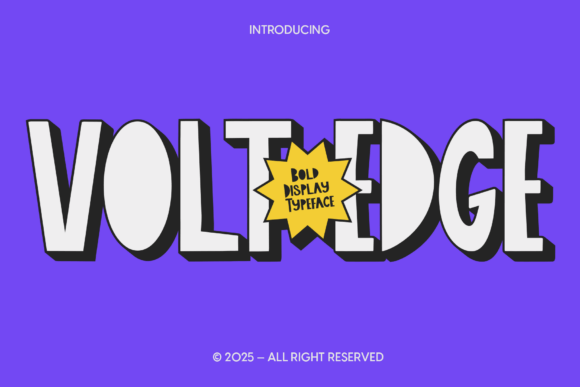
Cfvoltedge Regular Font: Unleash the Power of Bold Display Typography
In the world of typography, fonts play a crucial role in conveying messages, expressing emotions, and creating visual impact. Among the numerous font styles available, bold display typefaces have gained immense popularity for their ability to grab attention and make a lasting impression. One such font that has been making waves in the design community is Cfvoltedge Regular Font, also known as Volt Edge Font. In this article, we will explore the unique features, characteristics, and applications of Cfvoltedge Regular Font, and why it’s an excellent choice for designers seeking to add a spark of joy to their creations.
Introducing Cfvoltedge Regular Font
Cfvoltedge Regular Font, commonly referred to as Volt Edge Font, is a bold display typeface that exudes high energy, playfulness, and a dash of modern attitude. This electrifying font is designed to make a statement, perfect for headlines, posters, games, branding, packaging, and social content that demands attention. With its exaggerated curves, dynamic angles, and chunky proportions, VOLTEDGE is sure to stand out in loud, fun, and vibrant design contexts.
Key Features of Cfvoltedge Regular Font
- Exaggerated Curves: Cfvoltedge Regular Font boasts smooth, flowing curves that add a touch of elegance and sophistication to its bold design.
- Dynamic Angles: The font’s dynamic angles inject a sense of energy and movement, making it perfect for designs that require a lively and vibrant feel.
- Chunky Proportions: The chunky proportions of Cfvoltedge Regular Font ensure that it stands out in any design, making it ideal for headlines, titles, and promotional materials.
- Comic-Inspired Charisma: The font’s comic-inspired charisma adds a playful touch, making it suitable for designs aimed at a younger audience or those seeking to convey a sense of fun.
- Sharp Modern Attitude: Cfvoltedge Regular Font combines its playful nature with a sharp modern attitude, making it a versatile choice for a wide range of design applications.
Applications of Cfvoltedge Regular Font
Cfvoltedge Regular Font is an incredibly versatile typeface, suitable for various design applications, including:
- Headlines and Titles: The font’s bold and attention-grabbing nature makes it perfect for headlines, titles, and promotional materials.
- Posters and Flyers: Cfvoltedge Regular Font is ideal for posters and flyers that require a bold and eye-catching design.
- Games and Interactive Design: The font’s playful and energetic feel makes it suitable for games, interactive design, and other immersive experiences.
- Branding and Packaging: Cfvoltedge Regular Font can add a touch of personality and whimsy to branding and packaging designs.
- Social Content: The font’s bold and attention-grabbing nature makes it perfect for social content, such as social media posts, ads, and promotional materials.
Why Choose Cfvoltedge Regular Font?
With so many fonts available, why choose Cfvoltedge Regular Font? Here are a few compelling reasons:
- Unique Visual Impact: Cfvoltedge Regular Font delivers a unique visual impact that sets it apart from other fonts.
- Playful and Energetic: The font’s playful and energetic feel makes it perfect for designs that require a dash of personality and whimsy.
- Versatile: Cfvoltedge Regular Font is incredibly versatile, suitable for a wide range of design applications.
- Easy to Read: Despite its bold and chunky design, Cfvoltedge Regular Font remains easy to read, making it perfect for designs that require both style and substance.
Tips for Using Cfvoltedge Regular Font
To get the most out of Cfvoltedge Regular Font, here are a few tips:
- Use it Sparingly: Due to its bold and attention-grabbing nature, it’s best to use Cfvoltedge Regular Font sparingly, reserving it for headlines, titles, and promotional materials.
- Pair it with Other Fonts: Cfvoltedge Regular Font pairs well with other fonts, allowing you to create a unique and visually appealing design.
- Experiment with Colors: The font’s bold design makes it perfect for experimenting with bright and bold colors.
Cfvoltedge Regular Font, also known as Volt Edge Font, is a bold display typeface that packs a punch. With its exaggerated curves, dynamic angles, and chunky proportions, this font is sure to make a statement in any design. Its playful and energetic feel, combined with its sharp modern attitude, makes it perfect for a wide range of design applications. Whether you’re looking to create eye-catching headlines, bold posters, or engaging social content, Cfvoltedge Regular Font is an excellent choice.